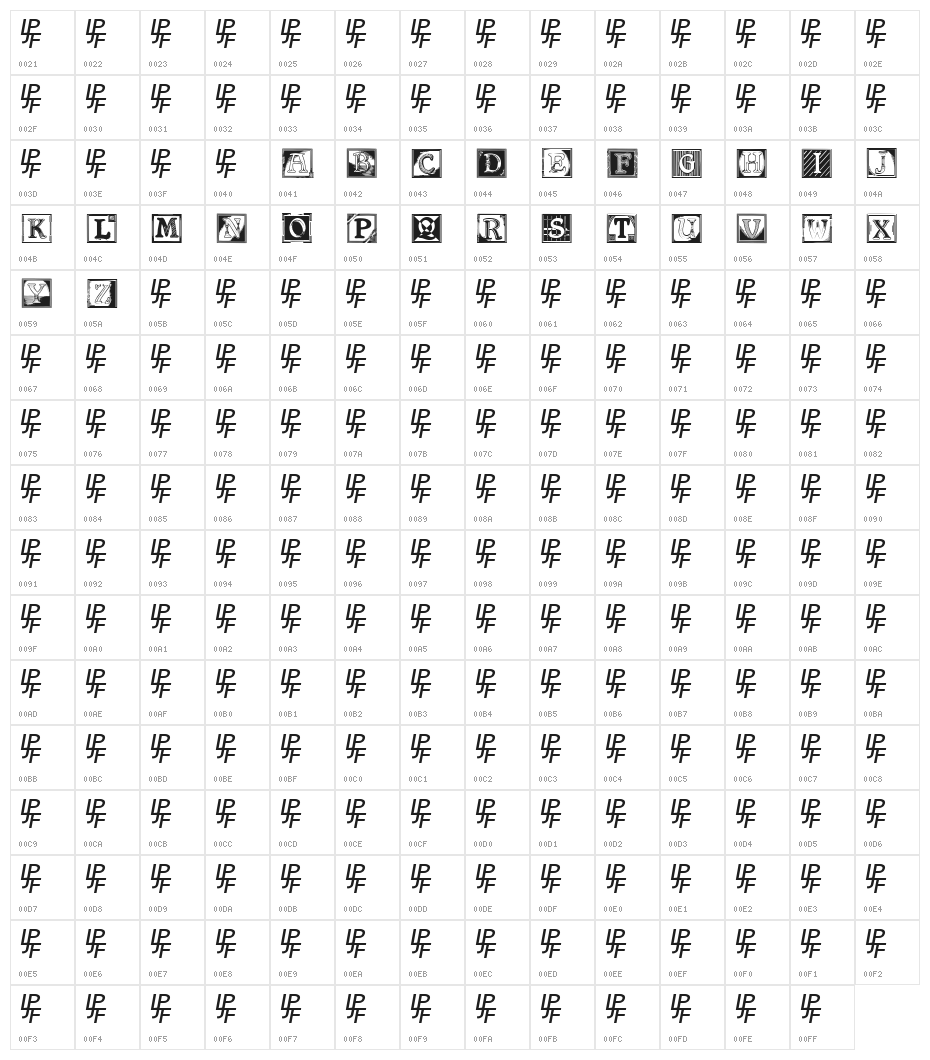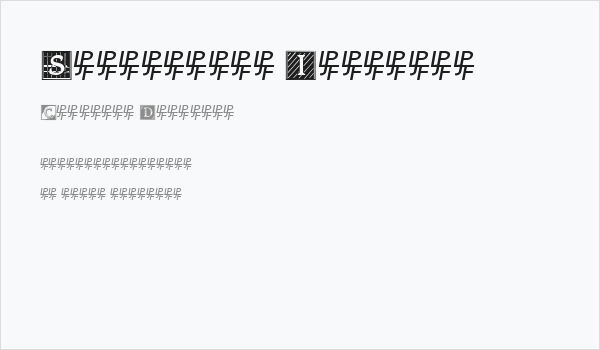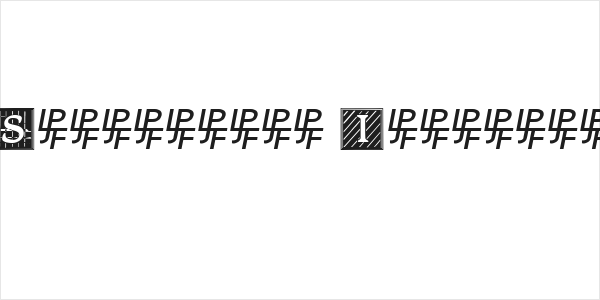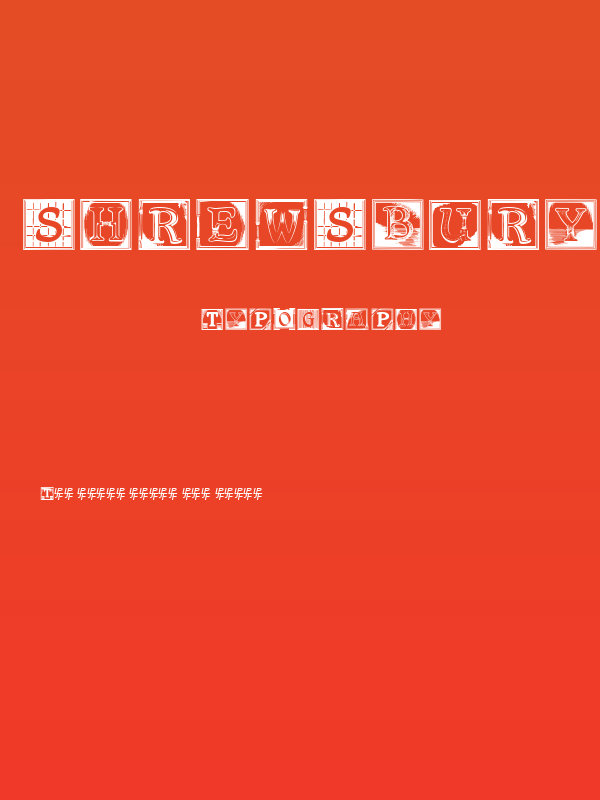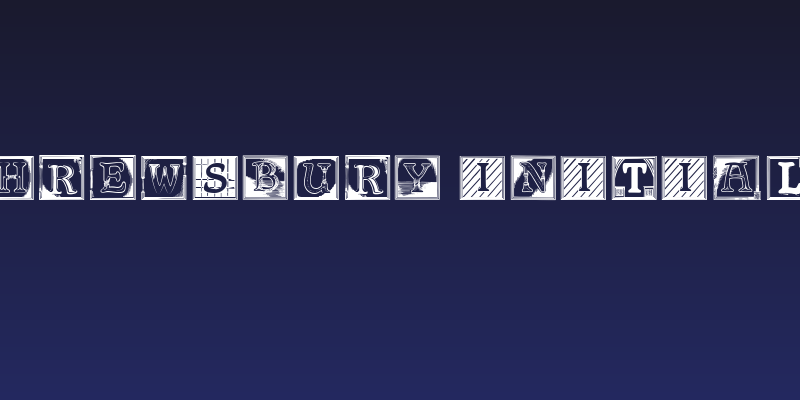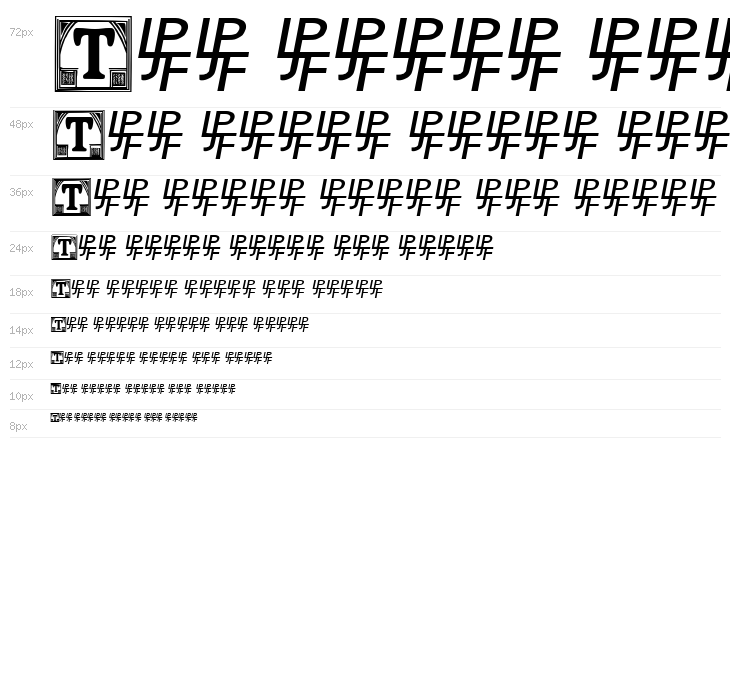
Shrewsbury Initials Font
Shrewsbury Initials Description
This font features a decorative and ornate style, with each letter encapsulated in a square frame. The uppercase letters are highly stylized, incorporating intricate patterns and textures such as stripes, dots, and floral motifs. The design is reminiscent of vintage or Victorian-era aesthetics, making it ideal for projects that require a touch of elegance and sophistication. The font is primarily suited for decorative purposes, as the intricate details may not be suitable for small text sizes.
| Proposed Projects | Ideal for wedding invitations, vintage-themed posters, book covers, and branding materials that require a classic and elegant touch. |